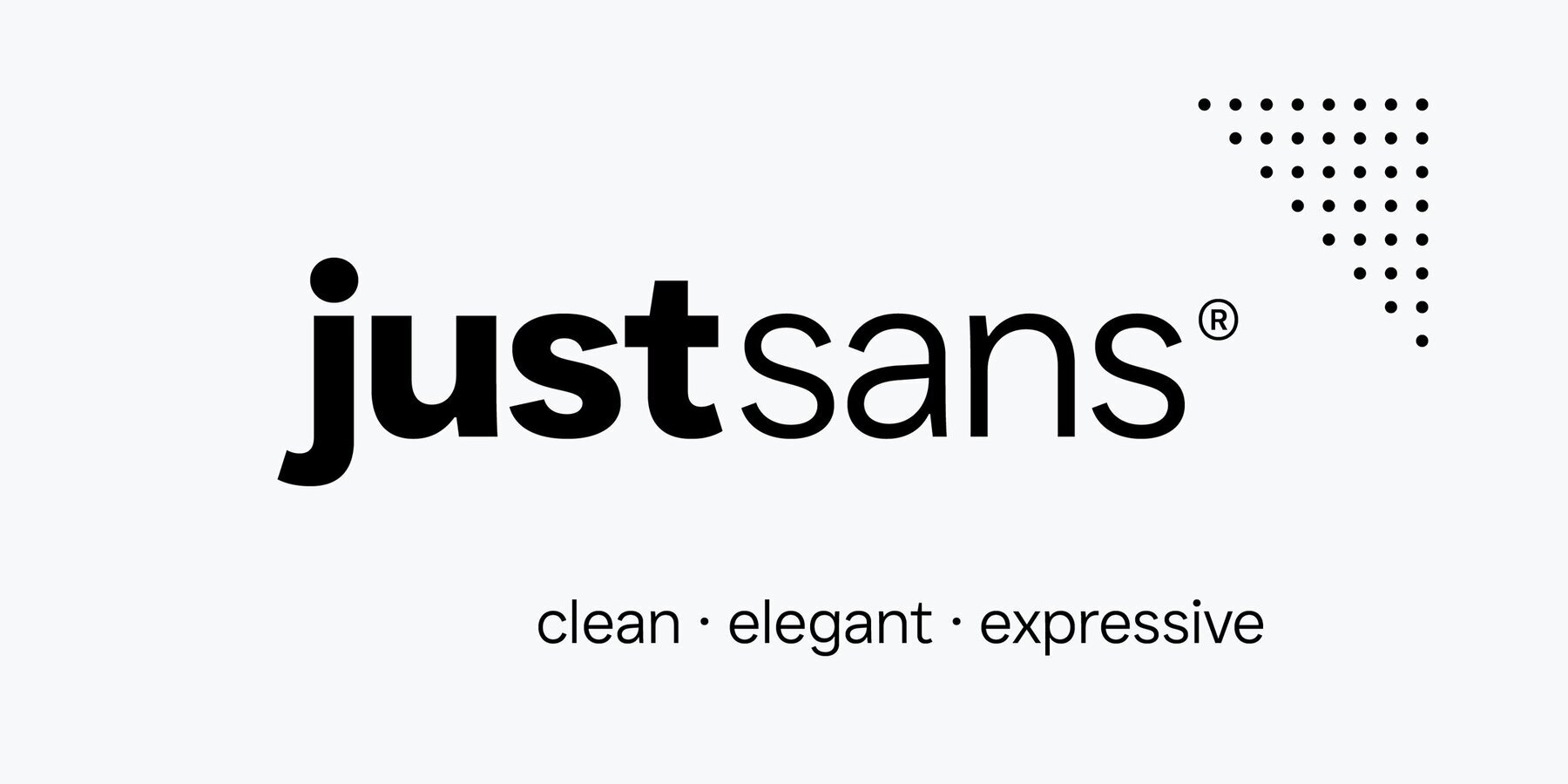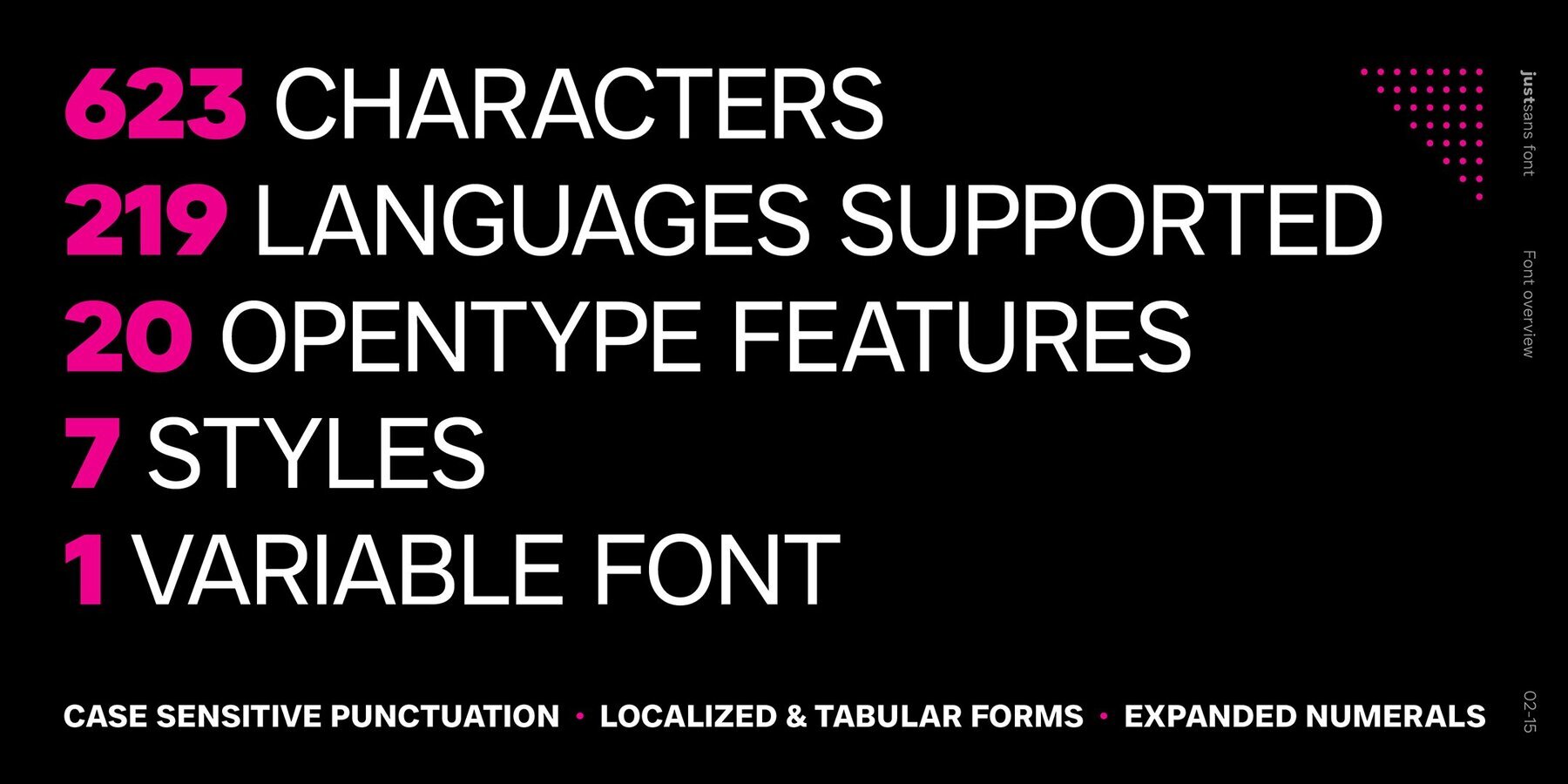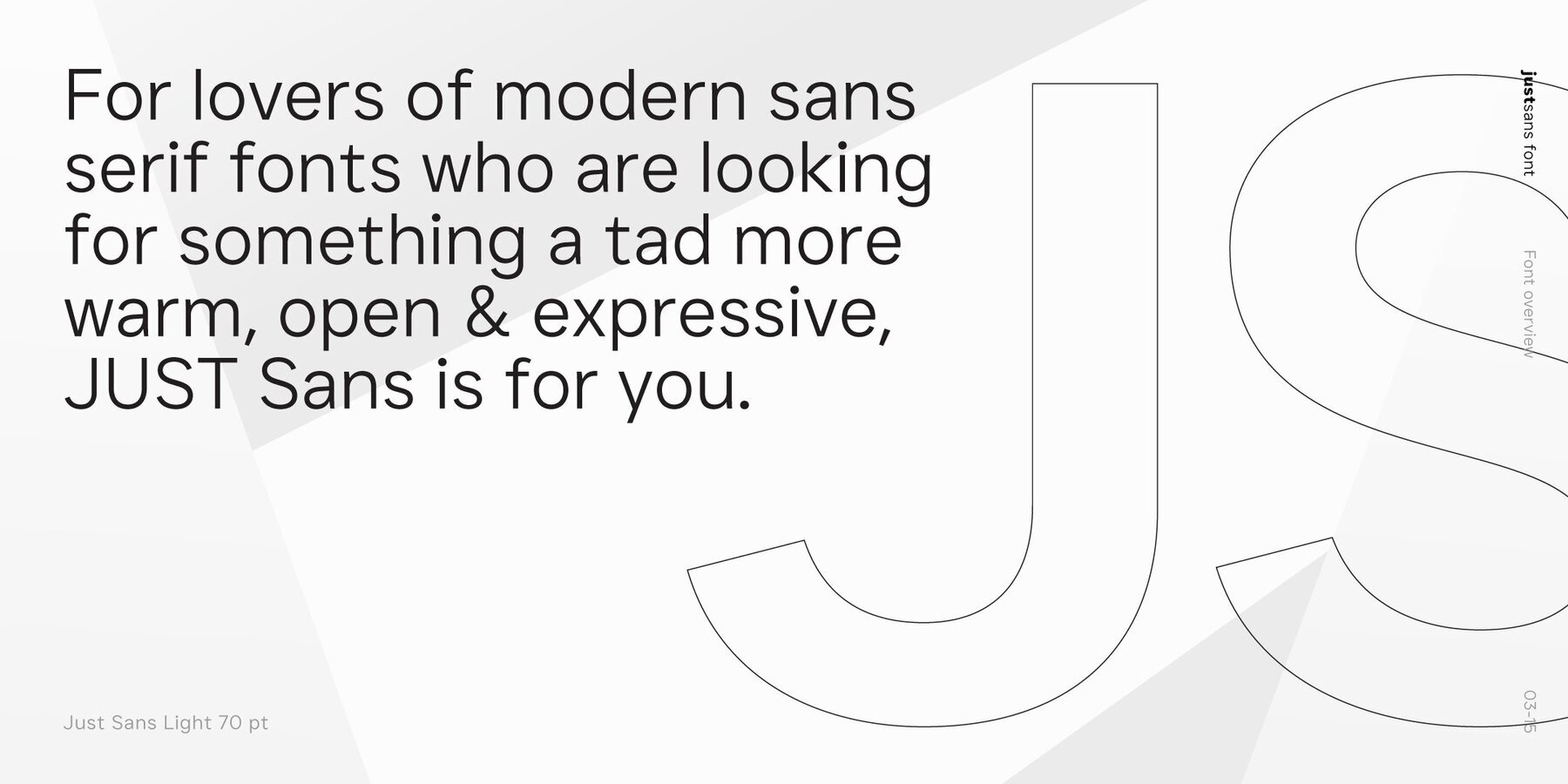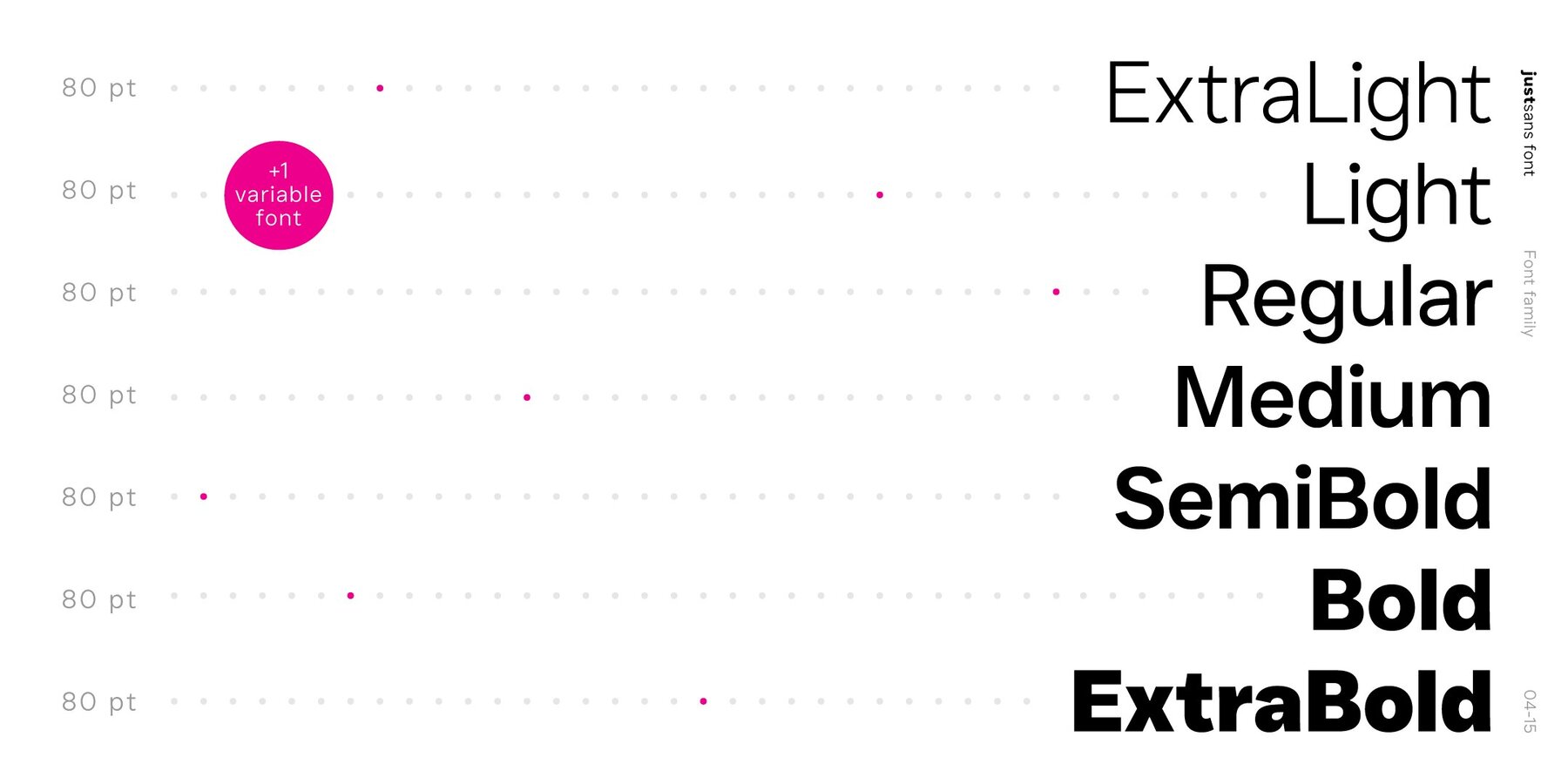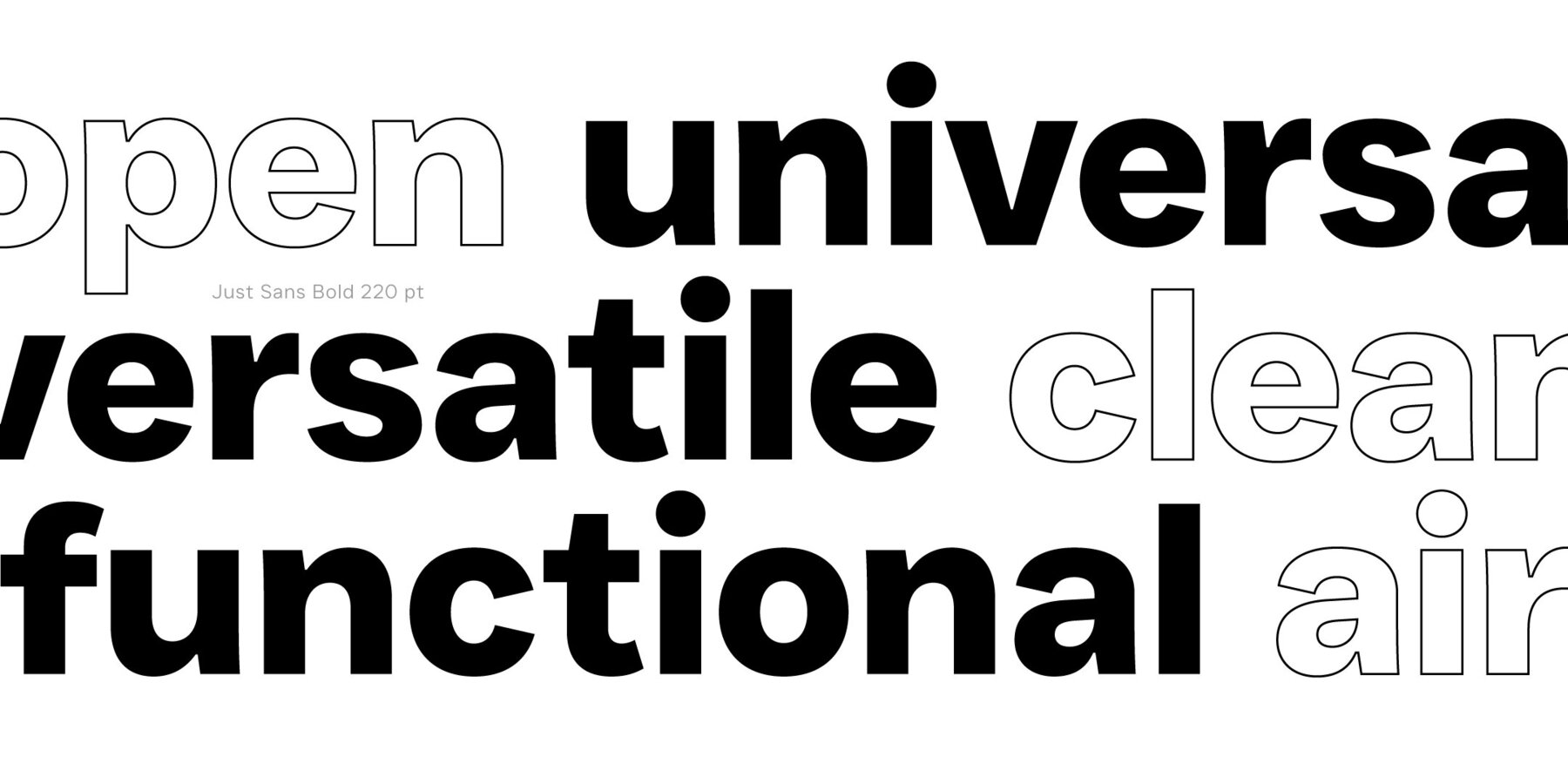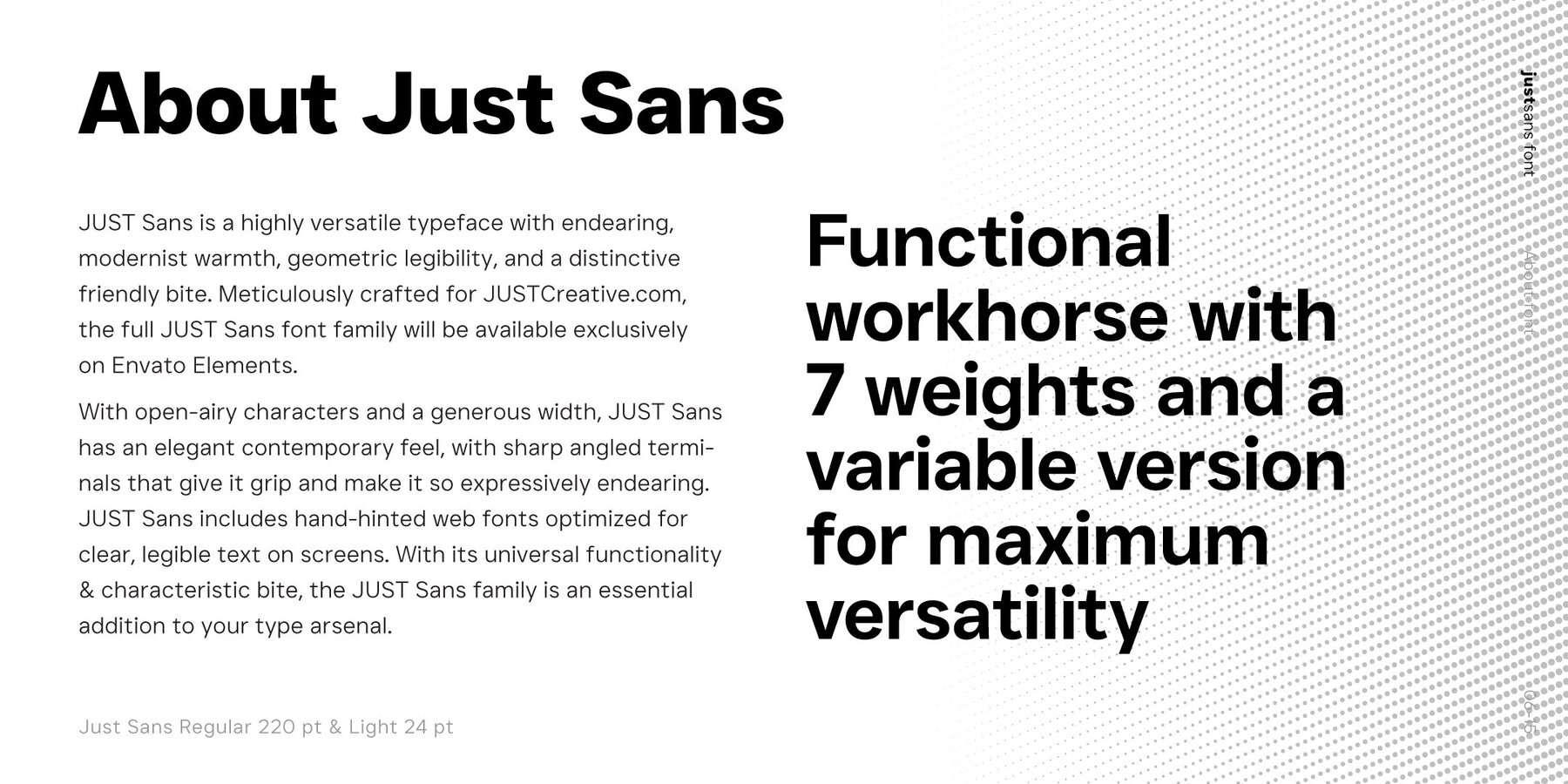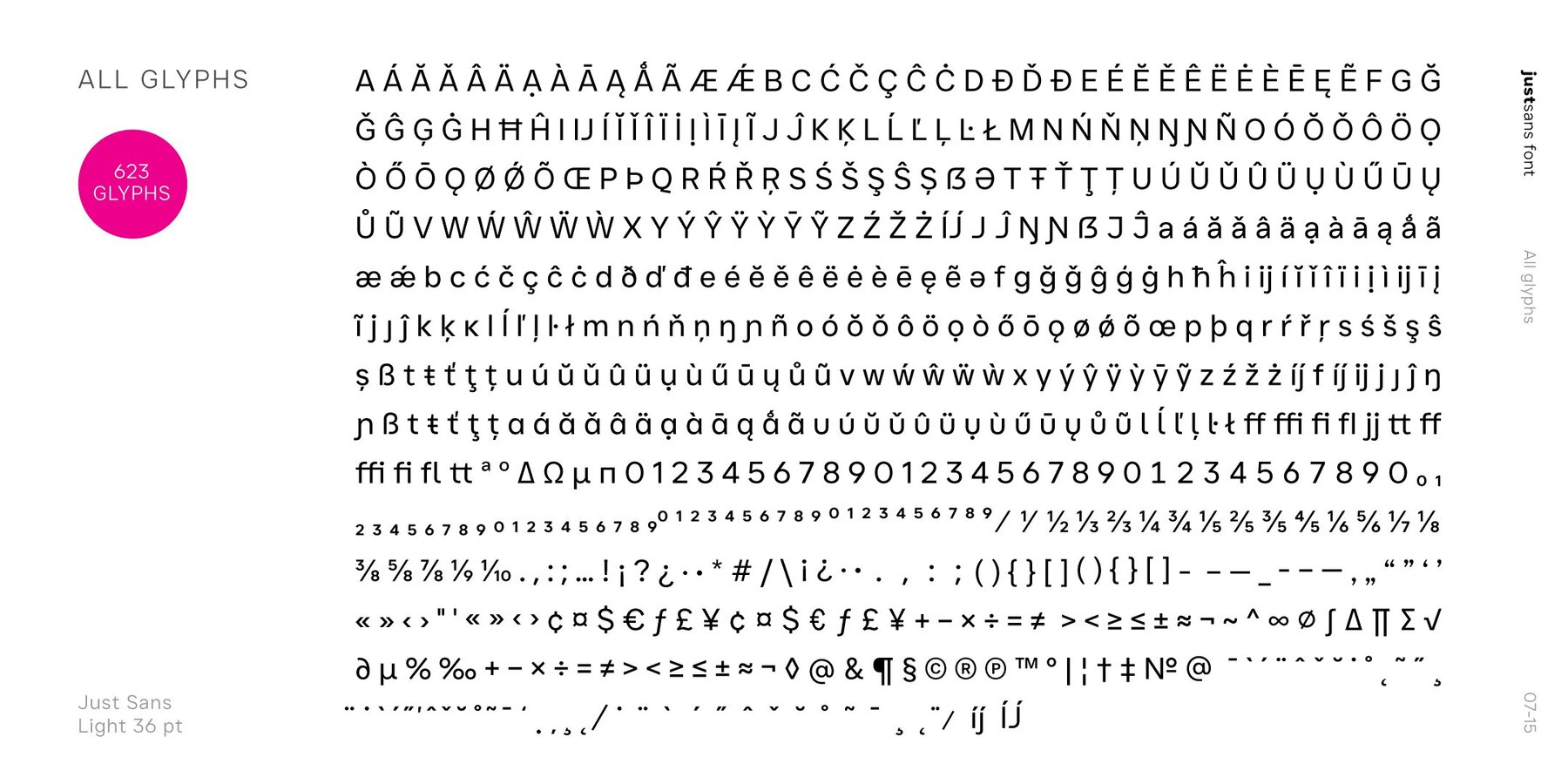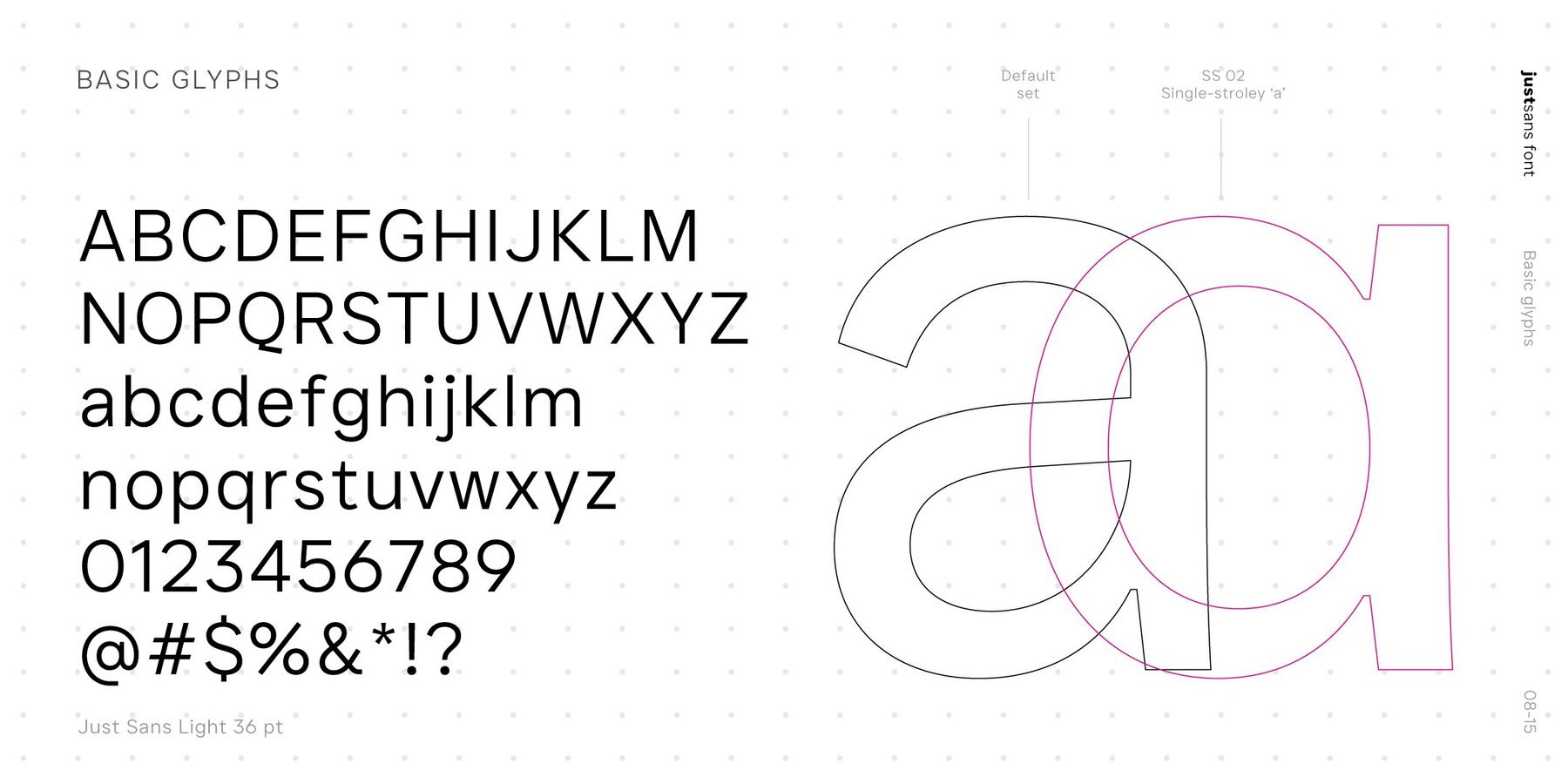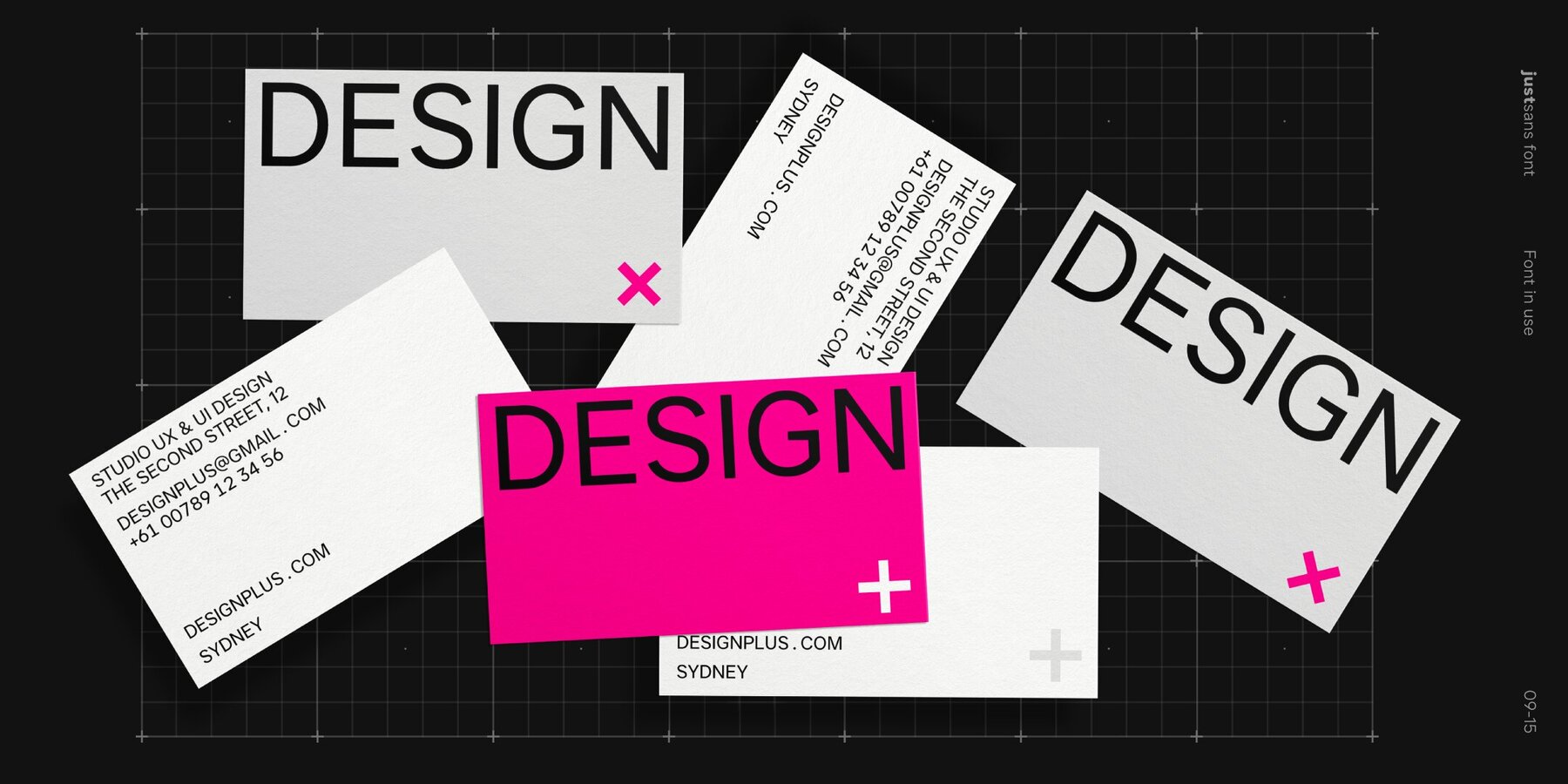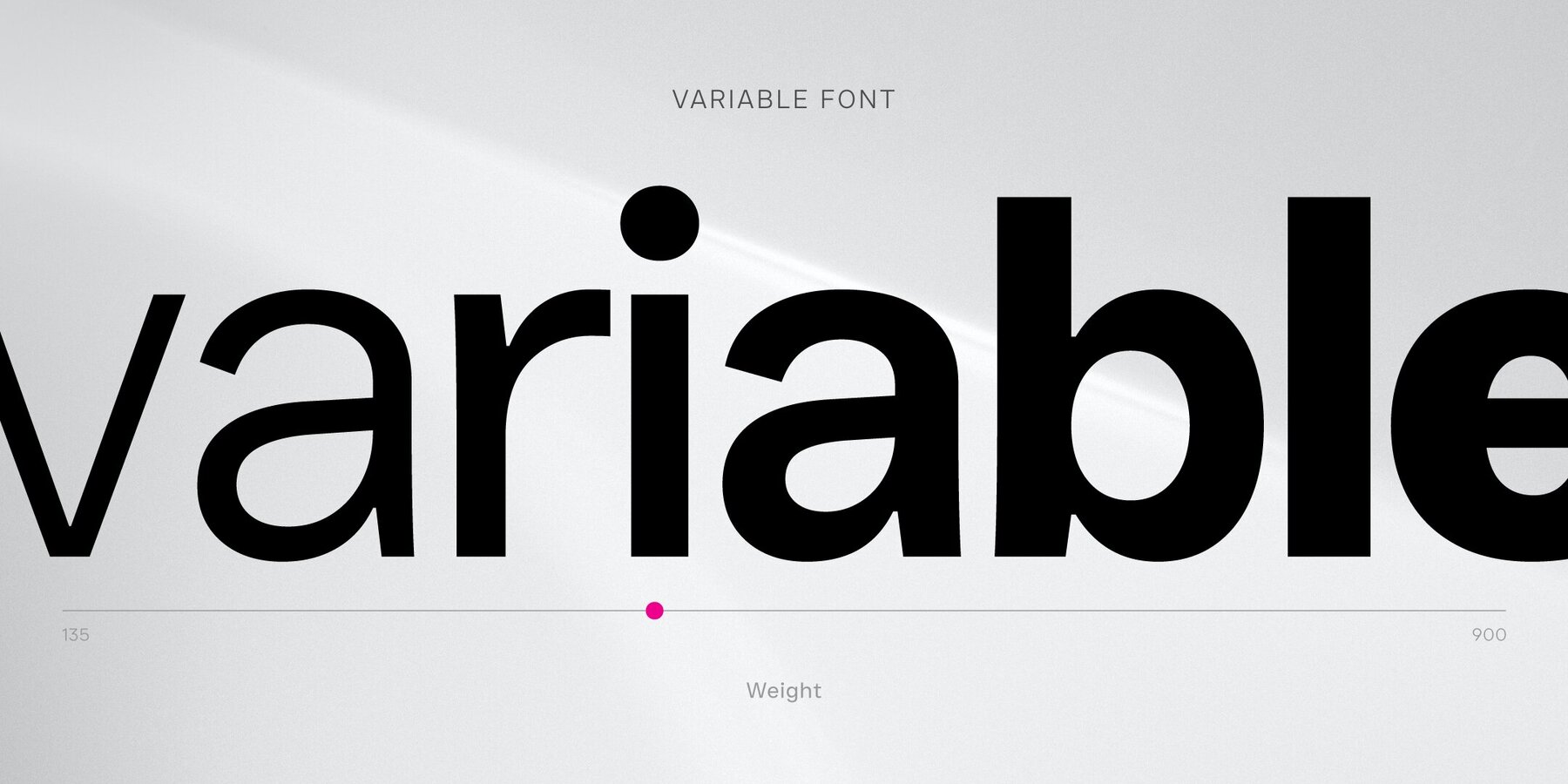
JUST Sans Font
JUST Sans is a highly versatile typeface with endearing, modernist warmth, geometric legibility, and a distinctive friendly bite. Designed as a professional modern geometric sans serif, JUST Sans is both serious and friendly, neutral but warmly expressive, technical but not overt, and familiar but unique enough to stand on its own. With open-airy characters and a generous width, JUST Sans has an elegant contemporary feel, with sharp angled terminals that give it grip and make it so expressively endearing. With a clean, simple, and minimal aesthetic, JUST Sans is a functional workhorse with 7 weights, complete Latin extended language support, precise hand-adjusted kerning, and a variable version for maximum versatility. JUST Sans includes hand-hinted web fonts optimized for clear, legible text on screens making JUST Sans perfect for the web as well as logos, branding, headlines, paragraph text, UI, signage, packaging, posters, and industries rooted in technology, new media, architecture, fashion & design. With its universal functionality & characteristic bite, the JUST Sans family is an essential addition to your type arsenal, even if just for those beautiful stylistic numbers. For lovers of modern sans serif fonts who are looking for something a tad more warm, open & expressive, JUST Sans is for you. Included in this set: Supported Languages: Armenian, Baltic, Central/Eastern Europe, English, Romanian, Turkish, Western Europe